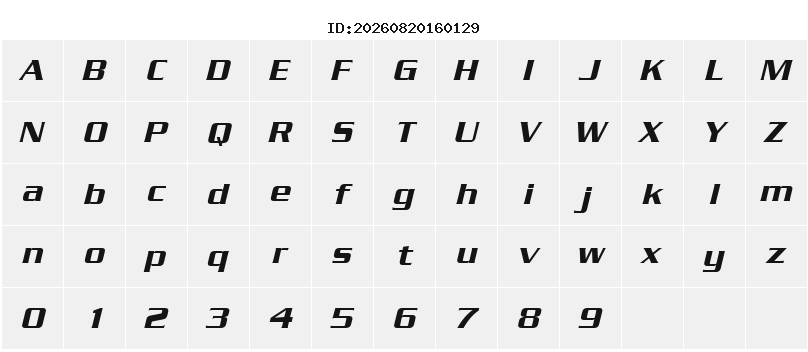
Serpentine LT Medium Preview
• Font Name: Serpentine LT Medium
• Font ID: Linotype Library GmbH: Serpentine LT Medium Oblique: 2002
• Full Font Name: Serpentine LT Medium Oblique
• PostScript Name: SerpentineLT-MediumOblique
About Serpentine LT Medium.ttf
Serpentine LT Medium.ttf is a modern, elegant sans-serif font designed for ultimate readability and visual harmony. Perfect for branding, headlines, web design, and print materials.